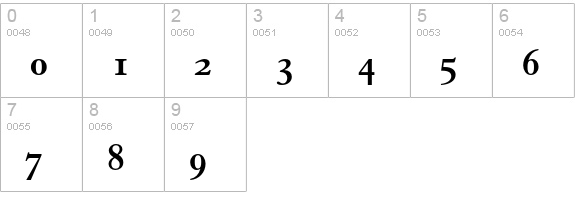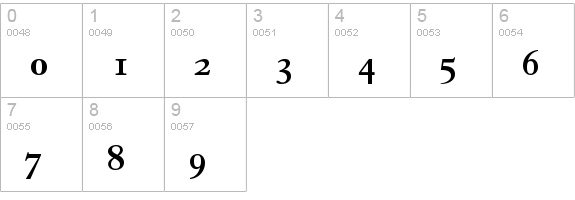
Granjon Bold Old Style Figures is a strong, high-contrast variant in the Granjon typeface family \xE2\x80\x94 well suited to headlines, attention-grabbing titles, and strong calls-to-action.
Granjon Bold Old Style Figures font is a classic and elegant typeface that captures the timeless beauty of traditional typography. Its bold weight exudes confidence and authority, making it perfect for headlines, titles, and emphasis in any design project. The Old Style Figures add a touch of sophistication and vintage charm, making this font a versatile choice for both print and digital applications. What's even better is that Granjon Bold Old Style Figures font is available for free download at FontsMarket.com. Whether you're a professional designer looking to add a refined touch to your work or a hobbyist seeking a high-quality font for personal projects, this font is an excellent choice. Download it today and elevate your designs with the timeless appeal of Granjon Bold Old Style Figures font.